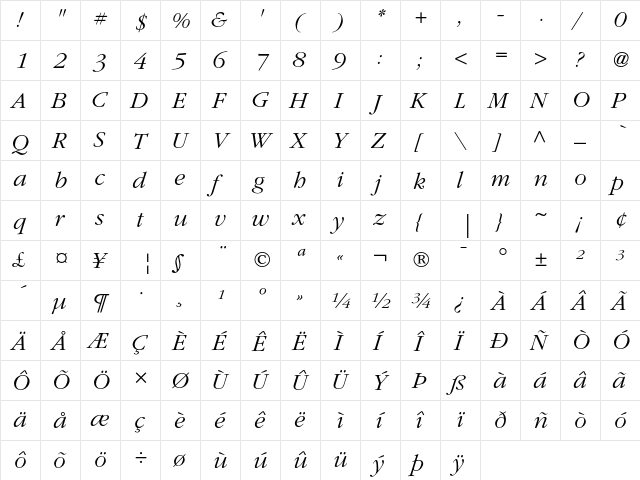
ITC Garamond Light Italic Font Preview
Design Context for ITC Garamond Typeface
ITC Garamond offers clean, dependable letterforms without strong stylistic allegiance, making it a practical choice for designers who need flexibility. The dynamic lean of this cut emphasises speed and emphasis in any layout. Its slender proportions lend an understated elegance to any composition.
Pro Tip: Try ITC Garamond for annotation and caption copy alongside an upright companion — the contrast in angle creates a dynamic but ordered typographic system.